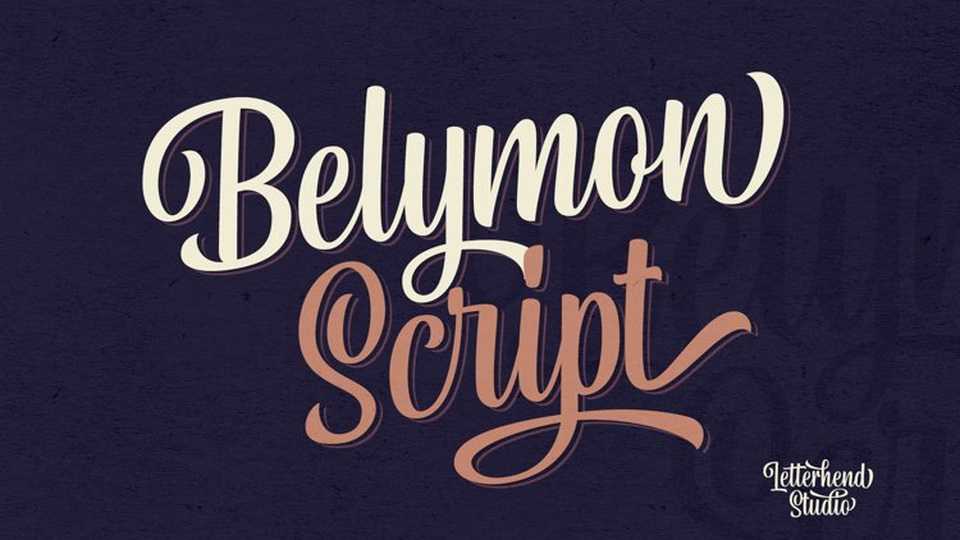
Download Belymon Script font, a one-of-a-kind hand lettered typeface with classic touch. Belymon Script is perfect for especially logotype, apparel, invitation, branding, packaging, advertising etc.